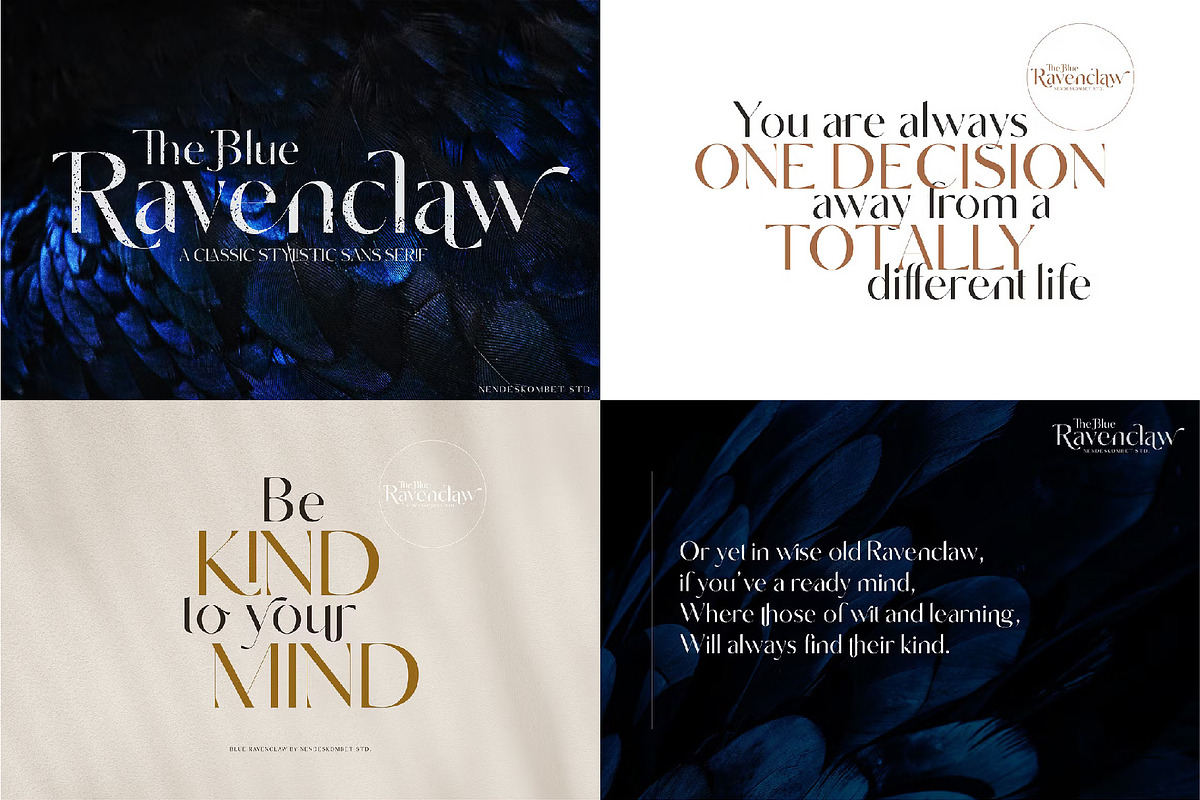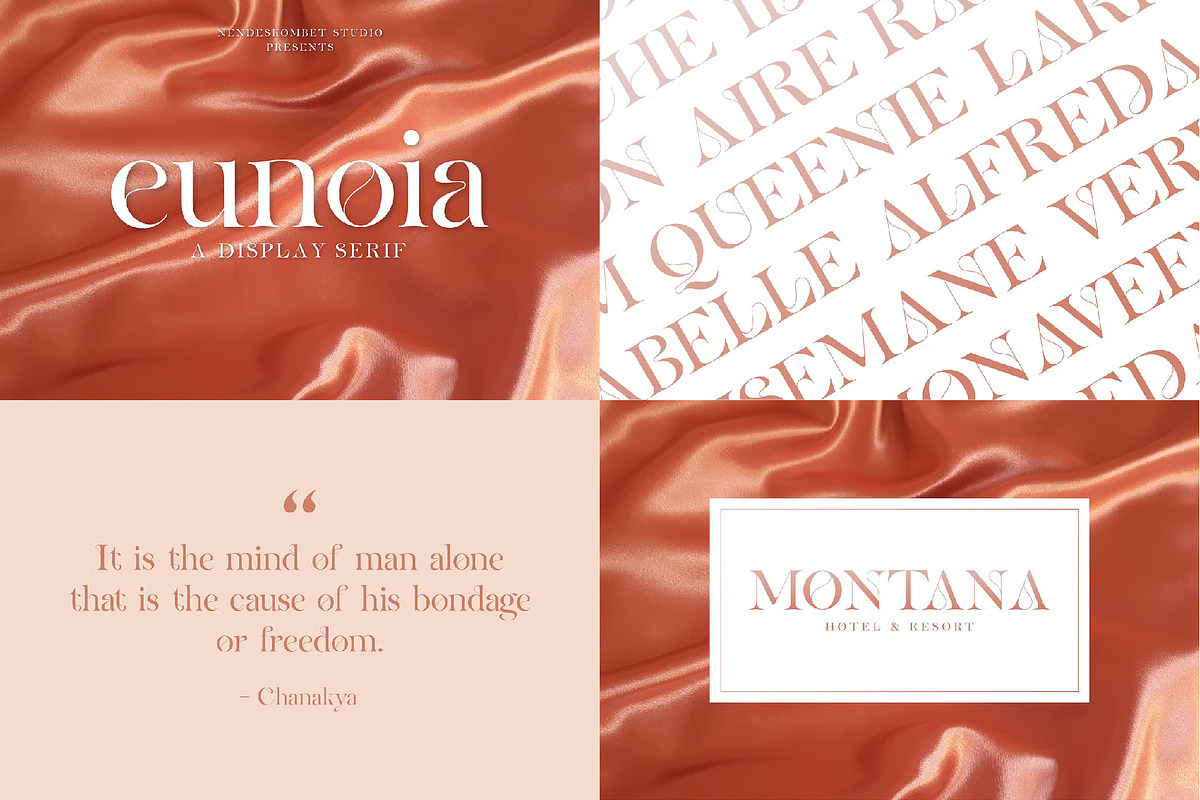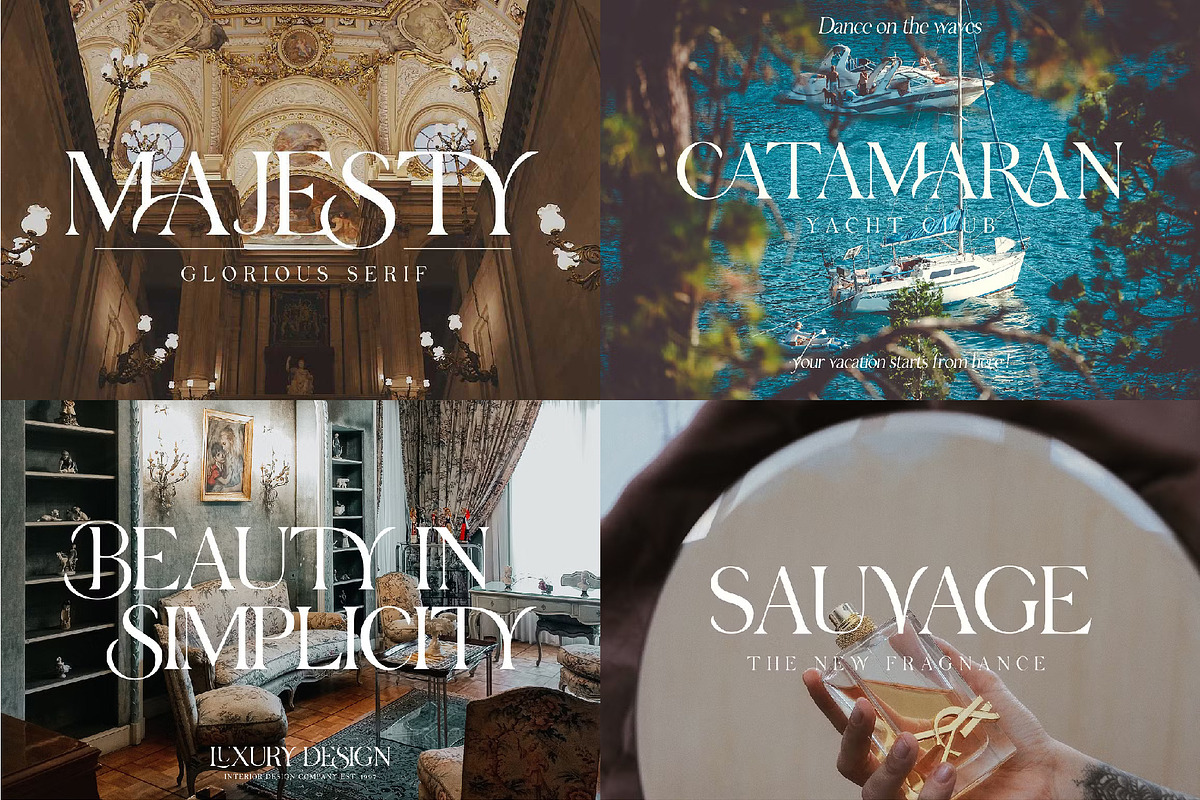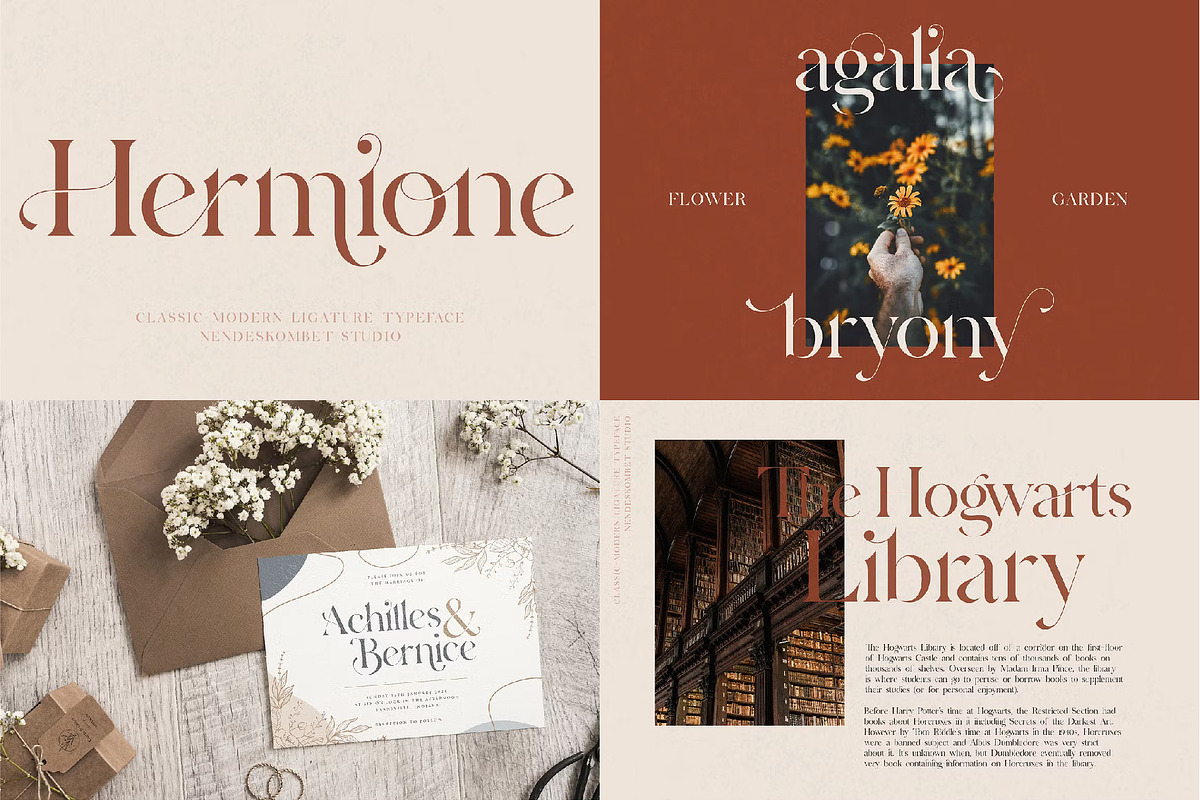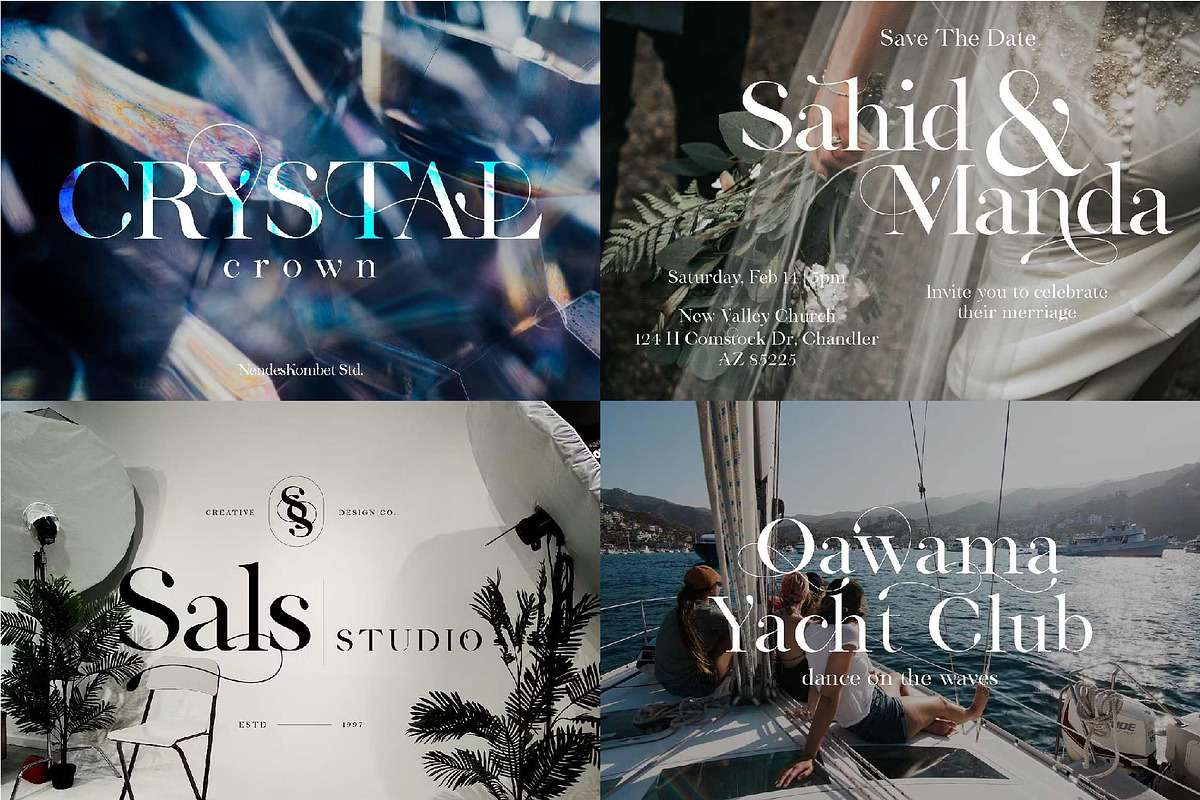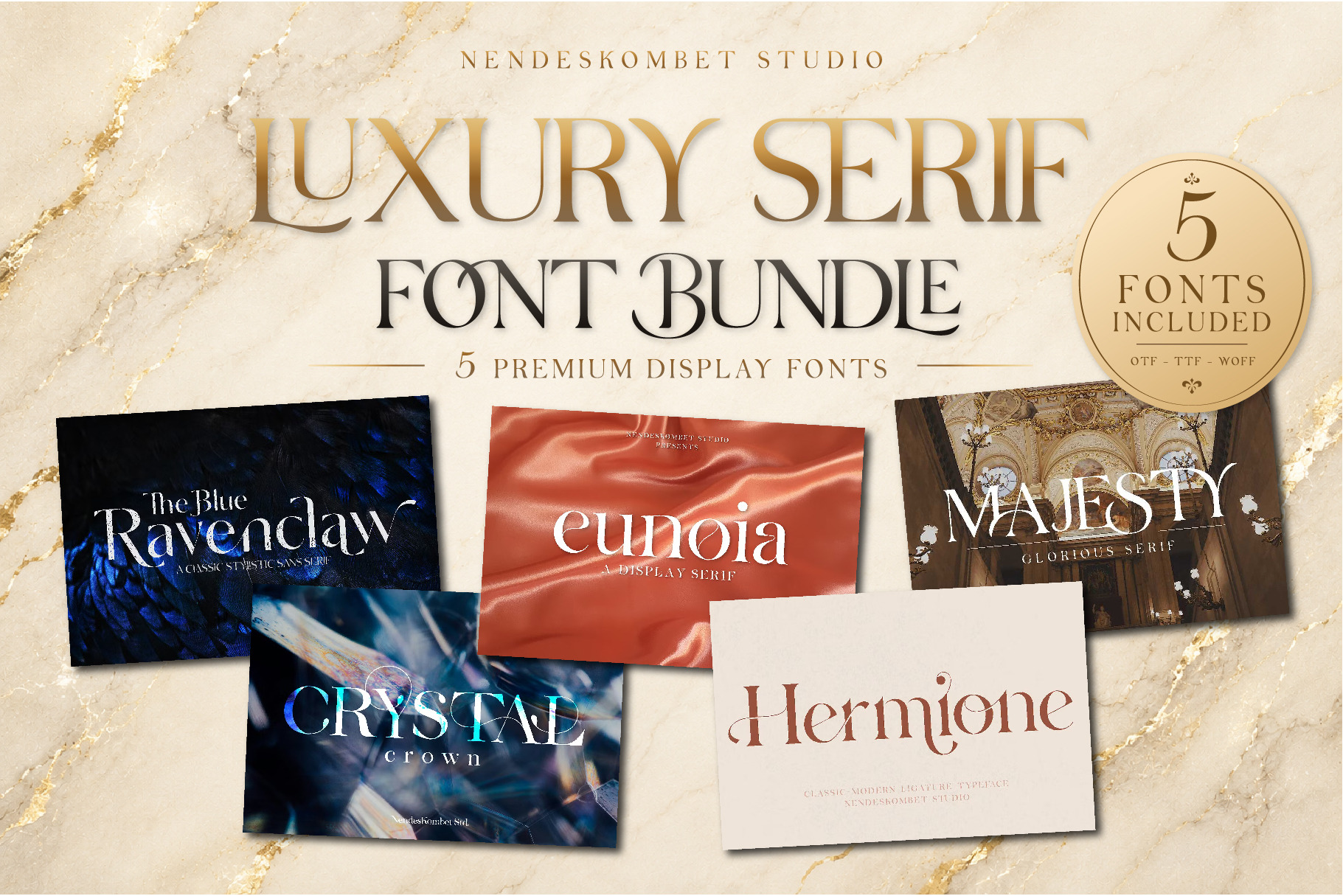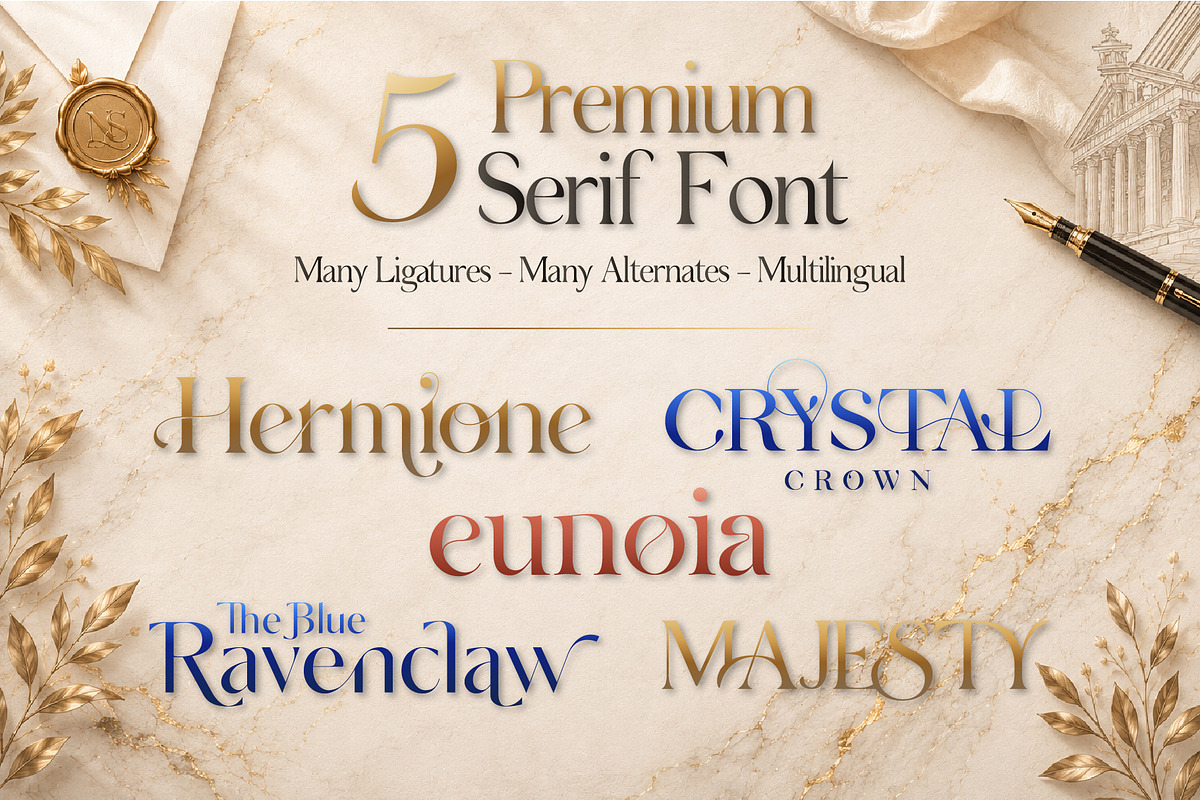
The Luxury Serif Collection-5 Fonts
Luxury Serif Font Bundle
5 Premium Display Fonts for Elegant Branding
Elevate your creative projects with this carefully curated collection of five premium serif typefaces. Each font is crafted with distinctive ligatures, refined letterforms, and timeless elegance—perfect for designers who want luxury, sophistication, and versatility in one bundle.
Whether you're designing luxury brands, wedding stationery, editorials, cosmetics packaging, fashion campaigns, logos, or social media graphics, this collection gives you everything you need to create stunning typography.
Bundle Includes
✦ The Blue Ravenclaw ✦ Crystal Crown ✦ Eunoia ✦ Majesty ✦ Hermione
• Luxury Branding • Logo Design • Wedding Invitations • Editorial & Magazine • Fashion & Beauty • Packaging Design • Social Media Templates • Book Covers • Quotes & Headlines